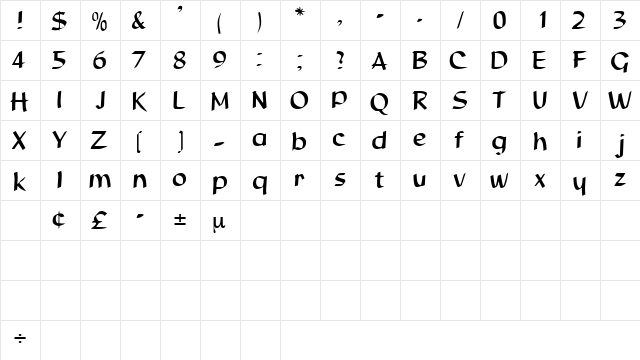
BeauregardDisplaySSK Regular
Design Context for BeauregardDisplaySSK Typeface
BeauregardDisplaySSK brings ornamental detail and strong personality to headlines and identities, where visual impact matters more than quiet functionality.
Font Pairing: Pair with a clean neutral sans-serif for body copy to let BeauregardDisplaySSK's character lead without overwhelming the composition.
Pro Tip: Treat BeauregardDisplaySSK as the centrepiece of your typographic hierarchy. One strong heading set in a decorative face can carry an entire layout.